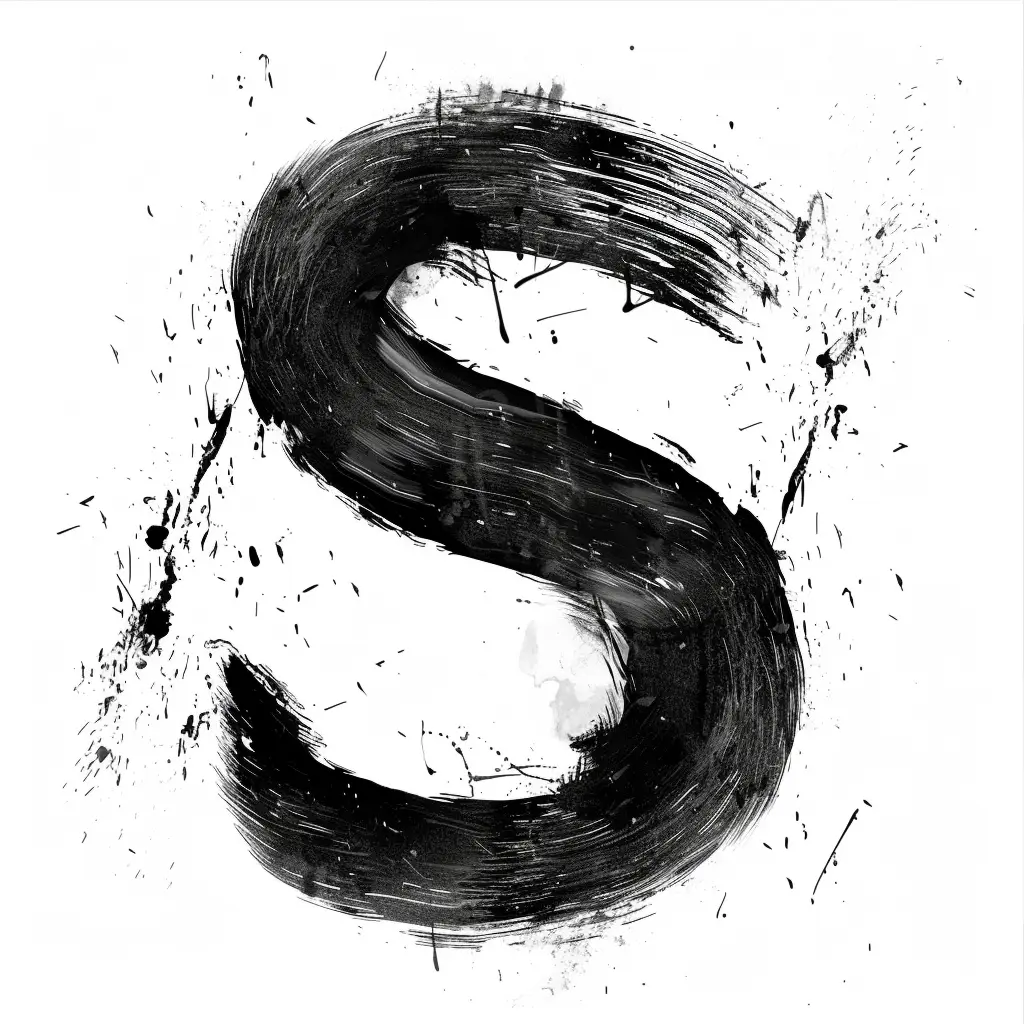
The image features a bold, hand-painted letter "S" rendered in thick, textured black brushstrokes against a stark white background. The style is expressive and dynamic, with visible brush marks, splatters, and drips that add a raw, artistic energy. The high-contrast black-and-white palette emphasizes the letter’s form, while scattered ink splatters and subtle variations in the brushwork enhance its organic, handcrafted feel.